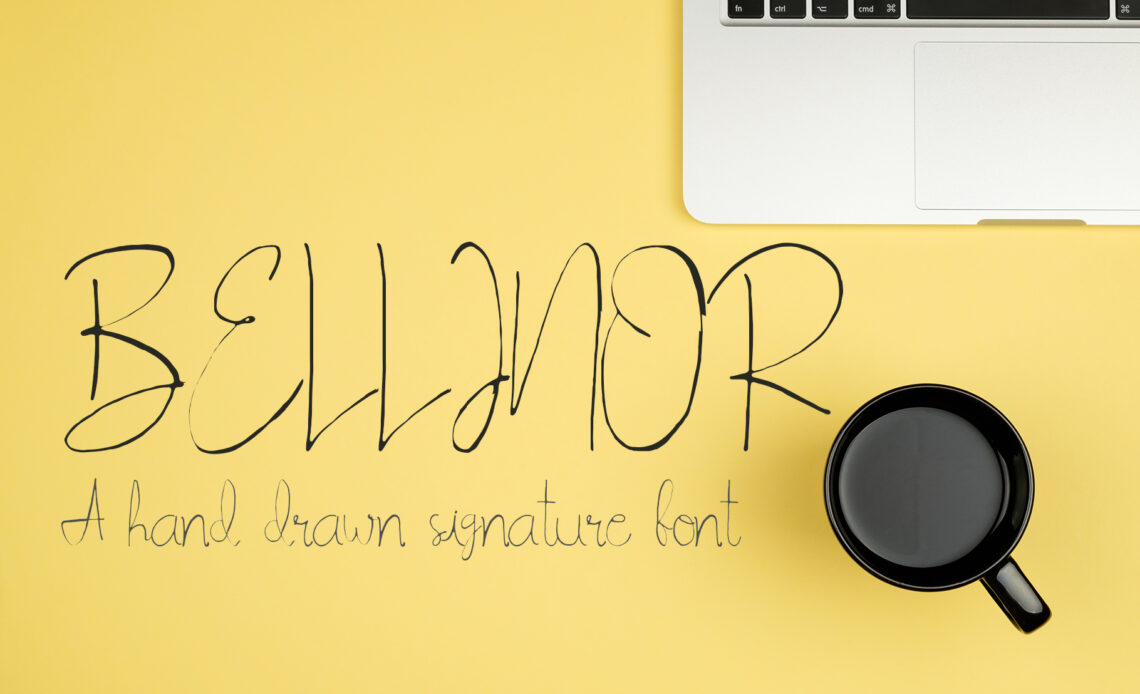
Welcome to the world of Bellinor Font, a visual masterpiece that dances gracefully on the canvas of your creativity! Crafted with meticulous detail by the talented hands at Creative Tacos, Bellinor is not just a font; it's an expression of art yearning to bring life to your words.
Bathed in delicate strokes and adorable touches, Bellinor Font is a dance of elegance and charm. Its 149 glyphs, each meticulously crafted, carry the spirit of endearment and warmth. Its uppercase and lowercase letters mingle harmoniously, creating a sense of visual delight. A vast array of punctuation and ligatures add the finishing touches, making Bellinor the perfect choice for a wide range of designs, from friendly invitations to delicate branding.
Unlock the gateway to exceptional typography with Bellinor Font's captivating features:
- Glide through your designs with the grace of uppercase and lowercase multilingual letters, ensuring effortless global communication.
- Discover the power of numbers and punctuation, precisely crafted to complement your words and enhance your message.
- Unleash your imagination with a treasure trove of alternatives, allowing you to weave creativity into every letter.